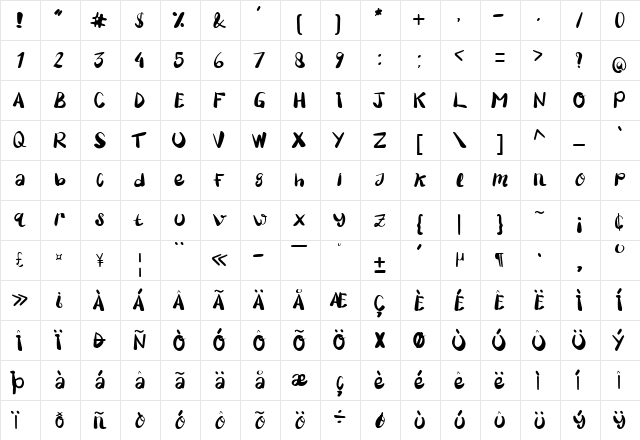
The Historich Regular
| Designer | Fajar Wicaksono |
Design Context for The Historich Typeface
The Historich is a composed and adaptable typeface that performs quietly and consistently across a wide range of design contexts.